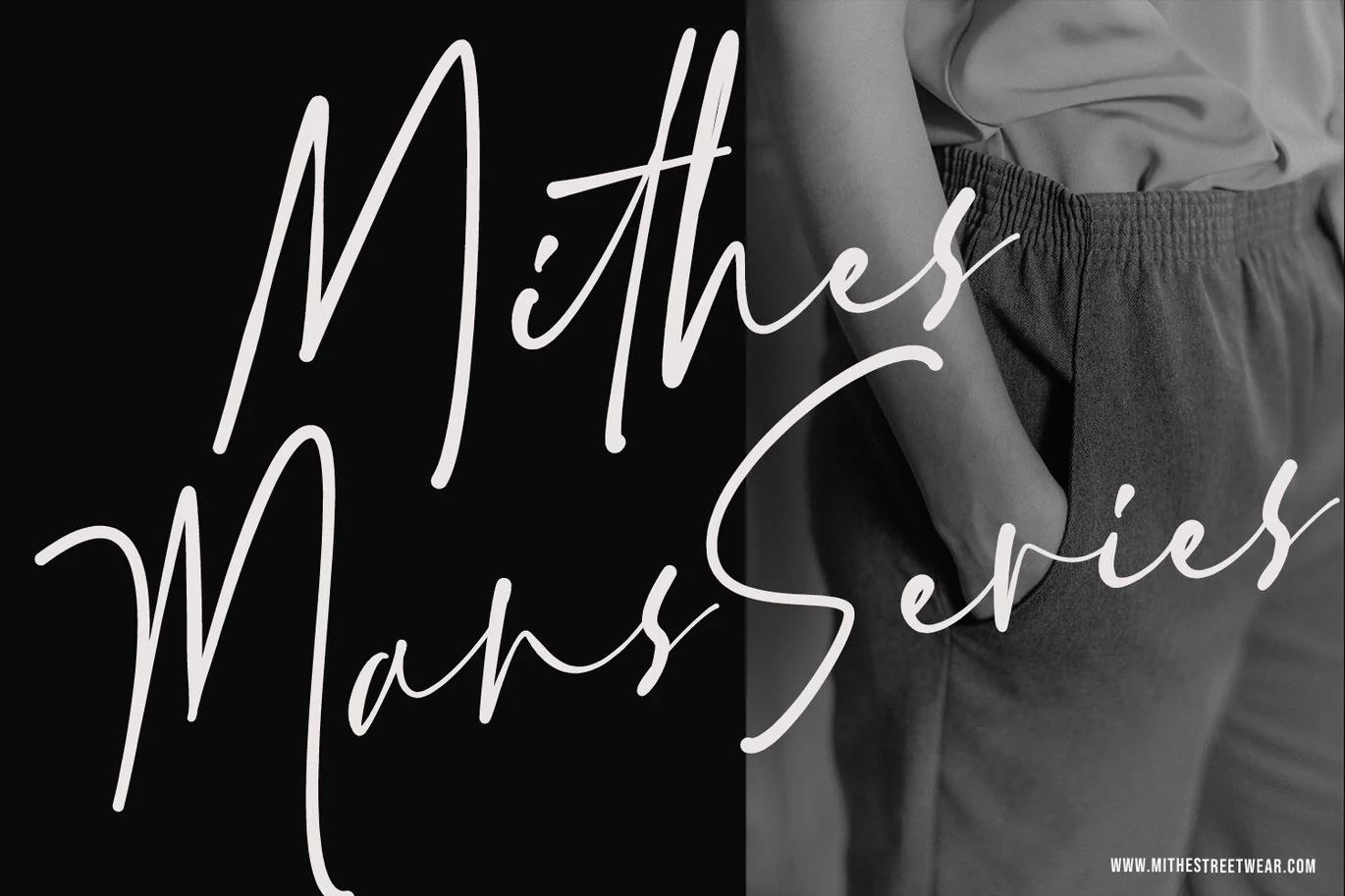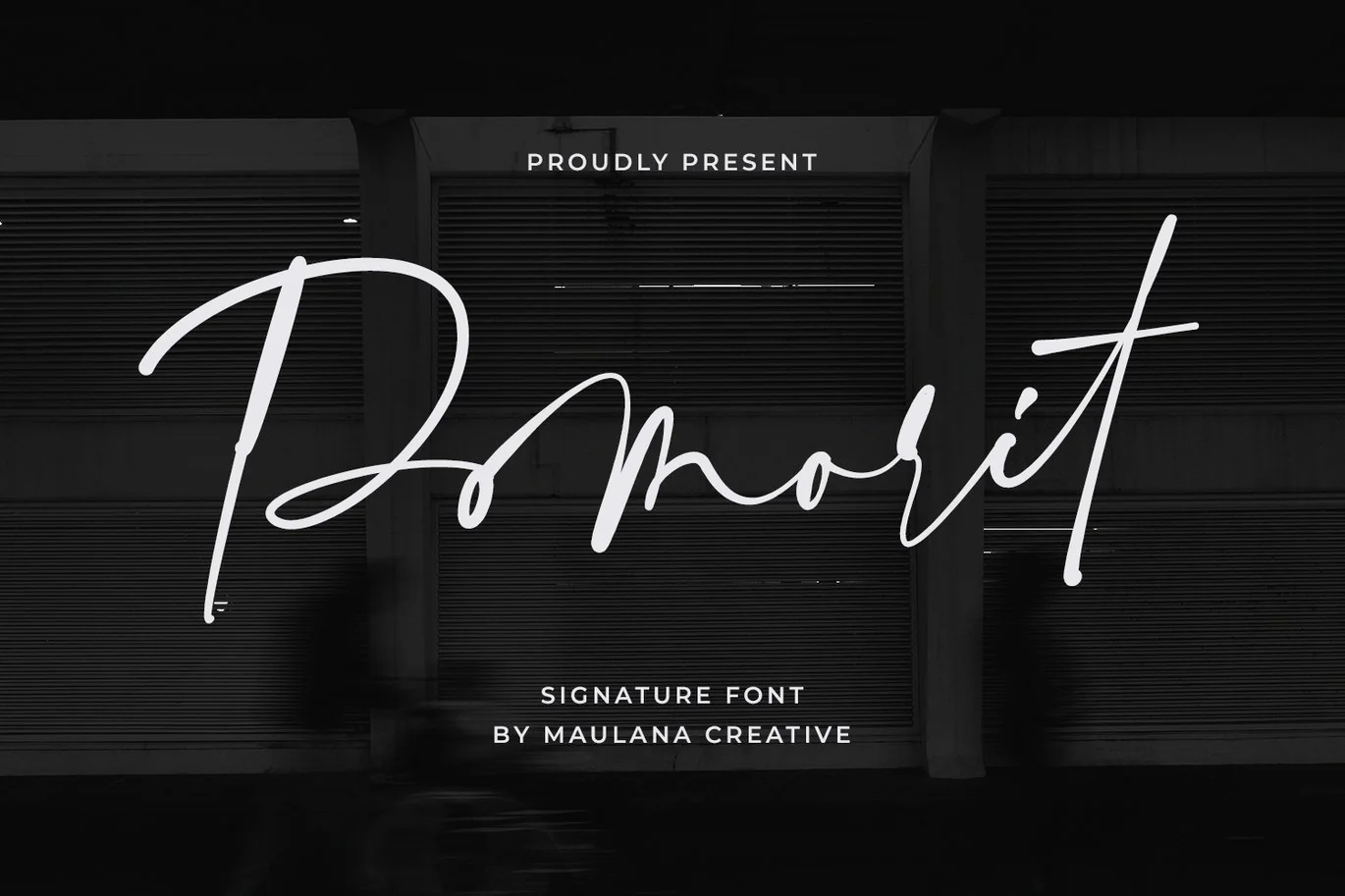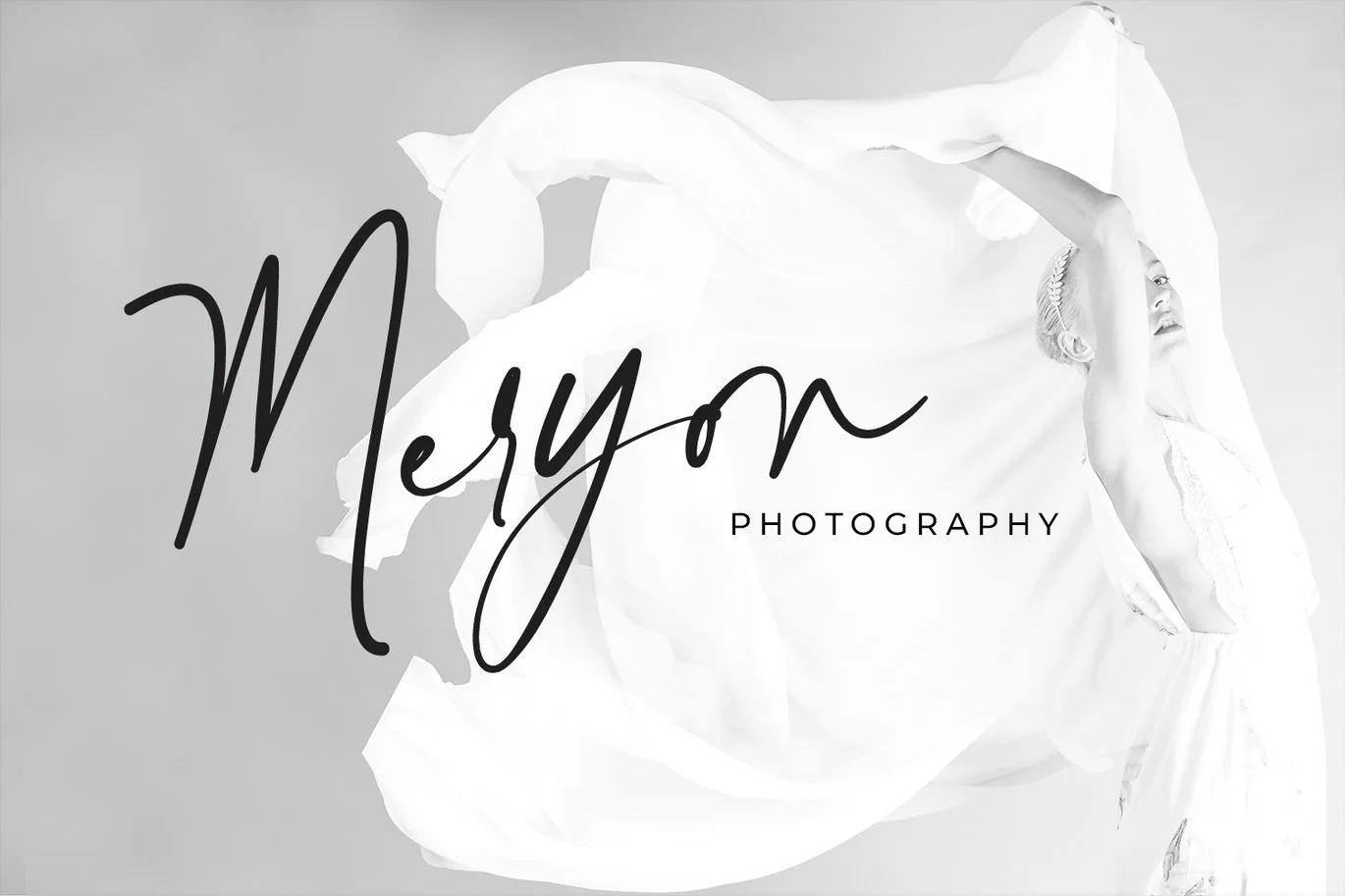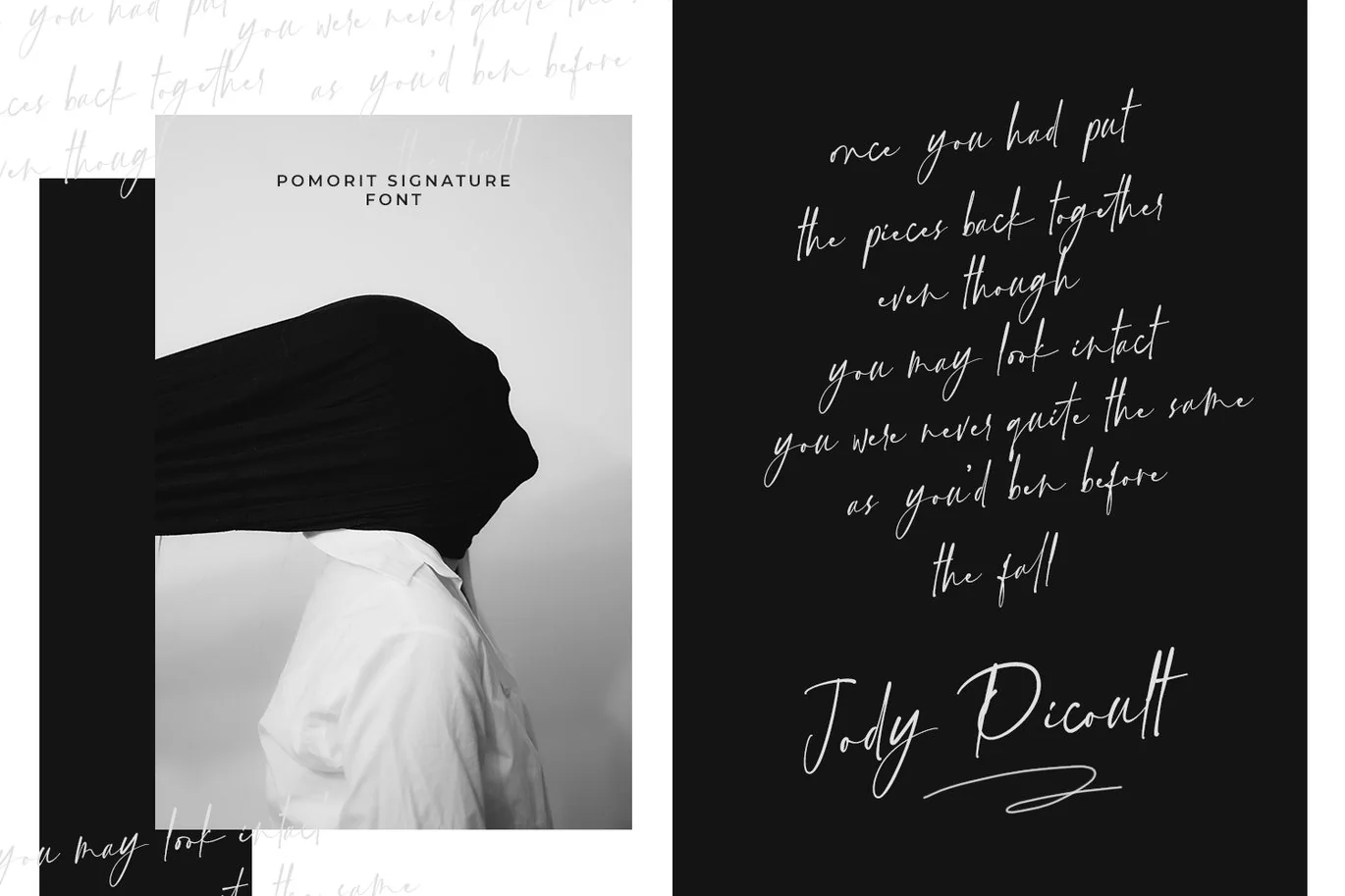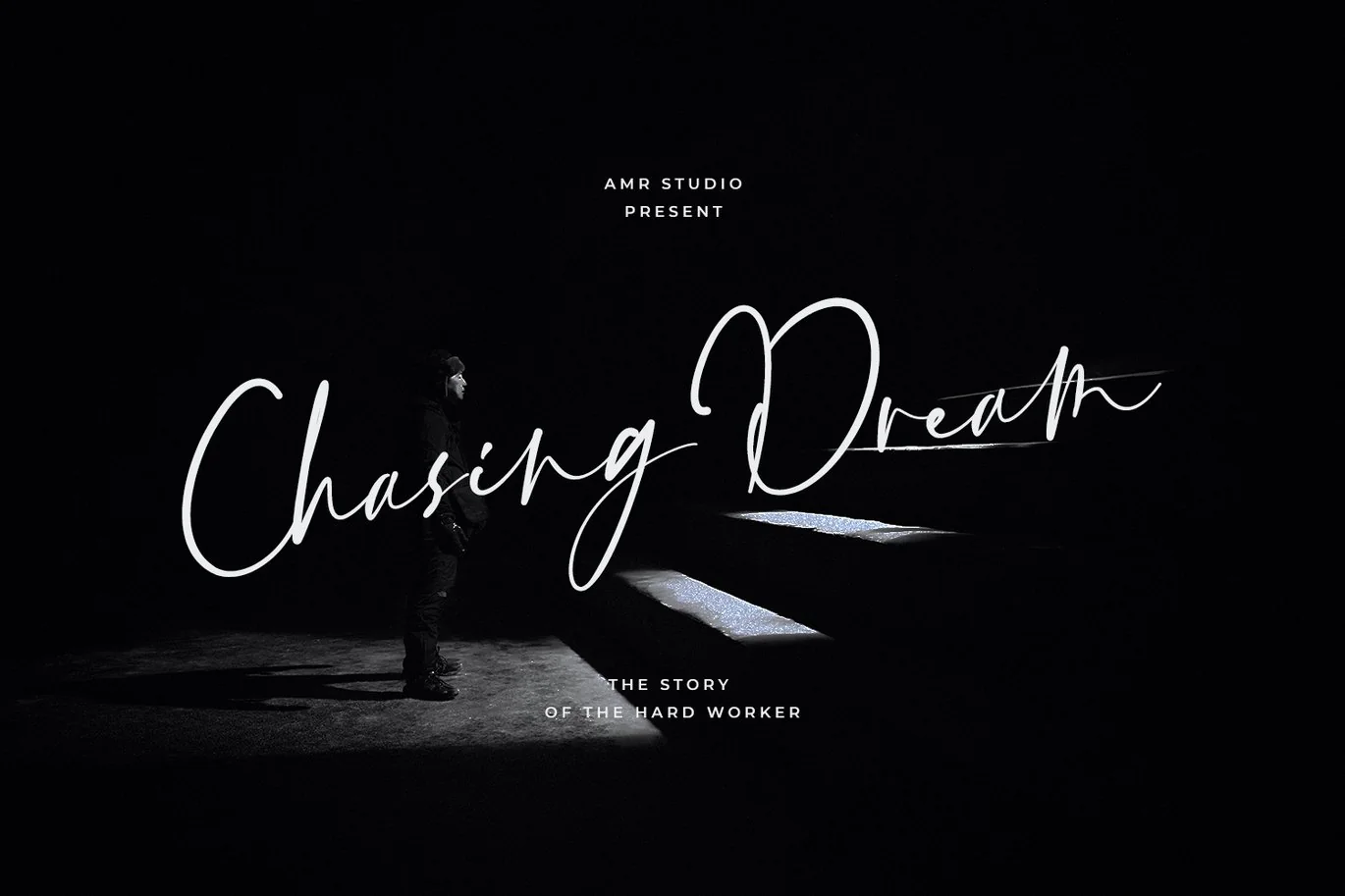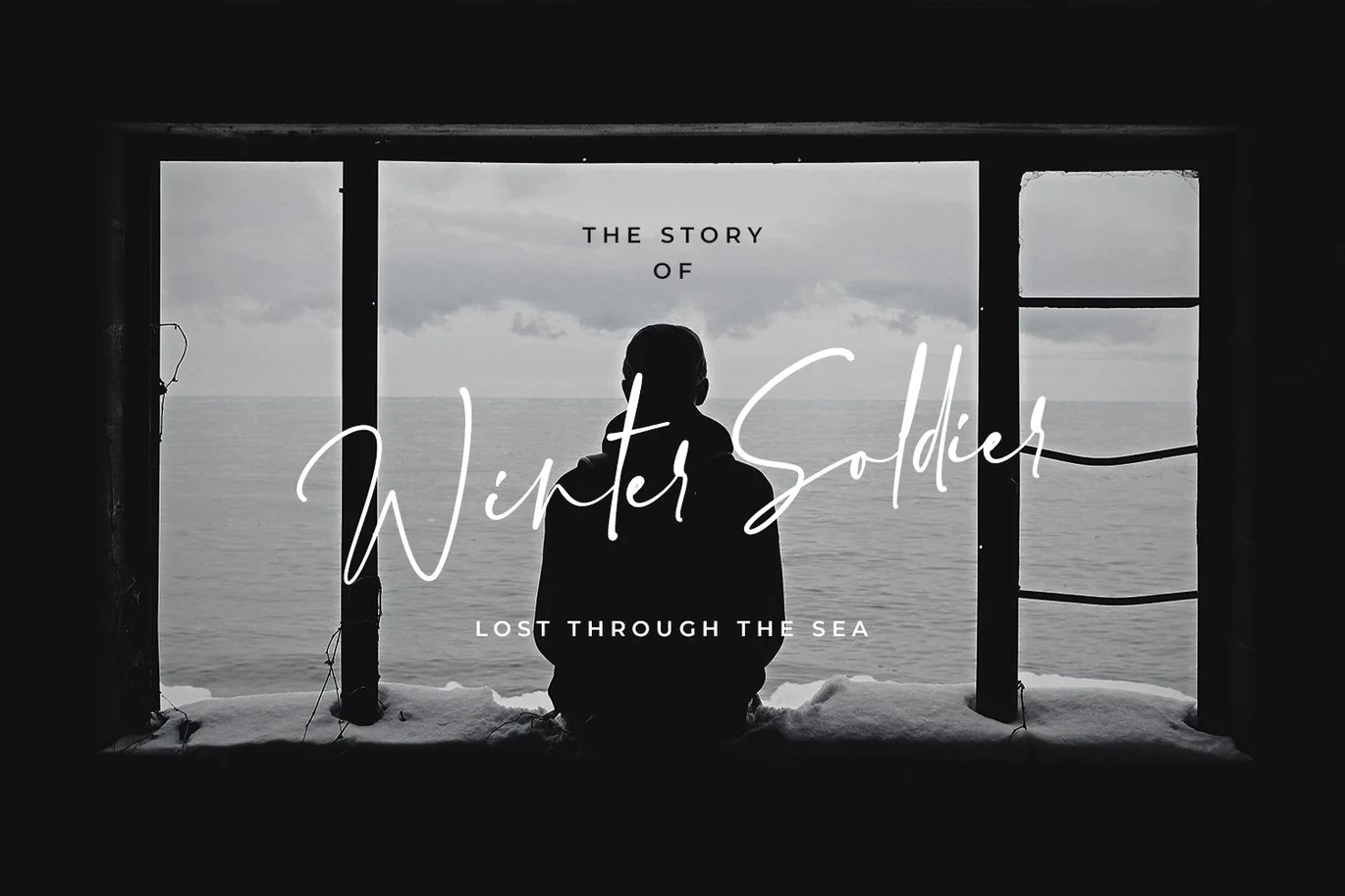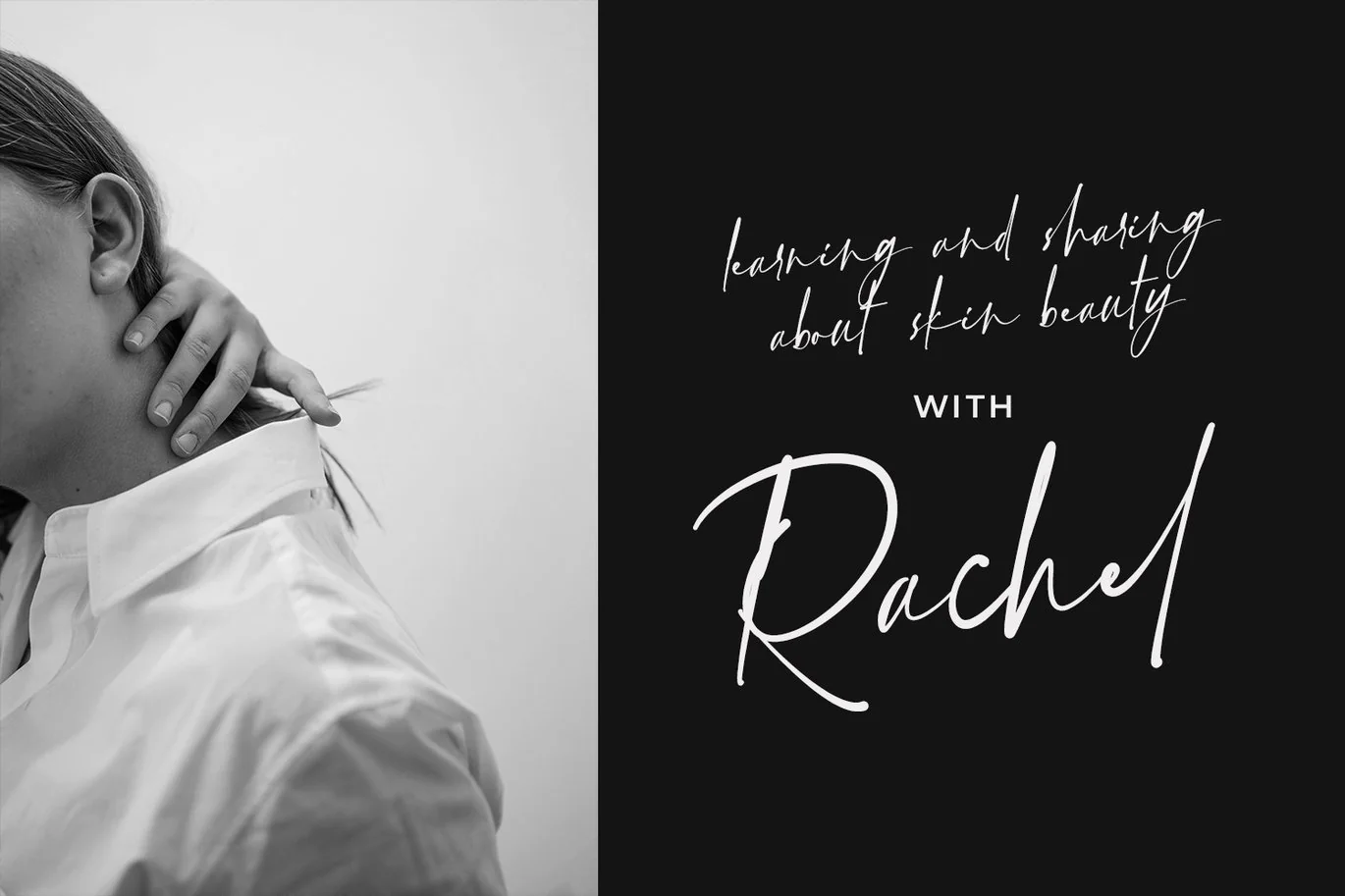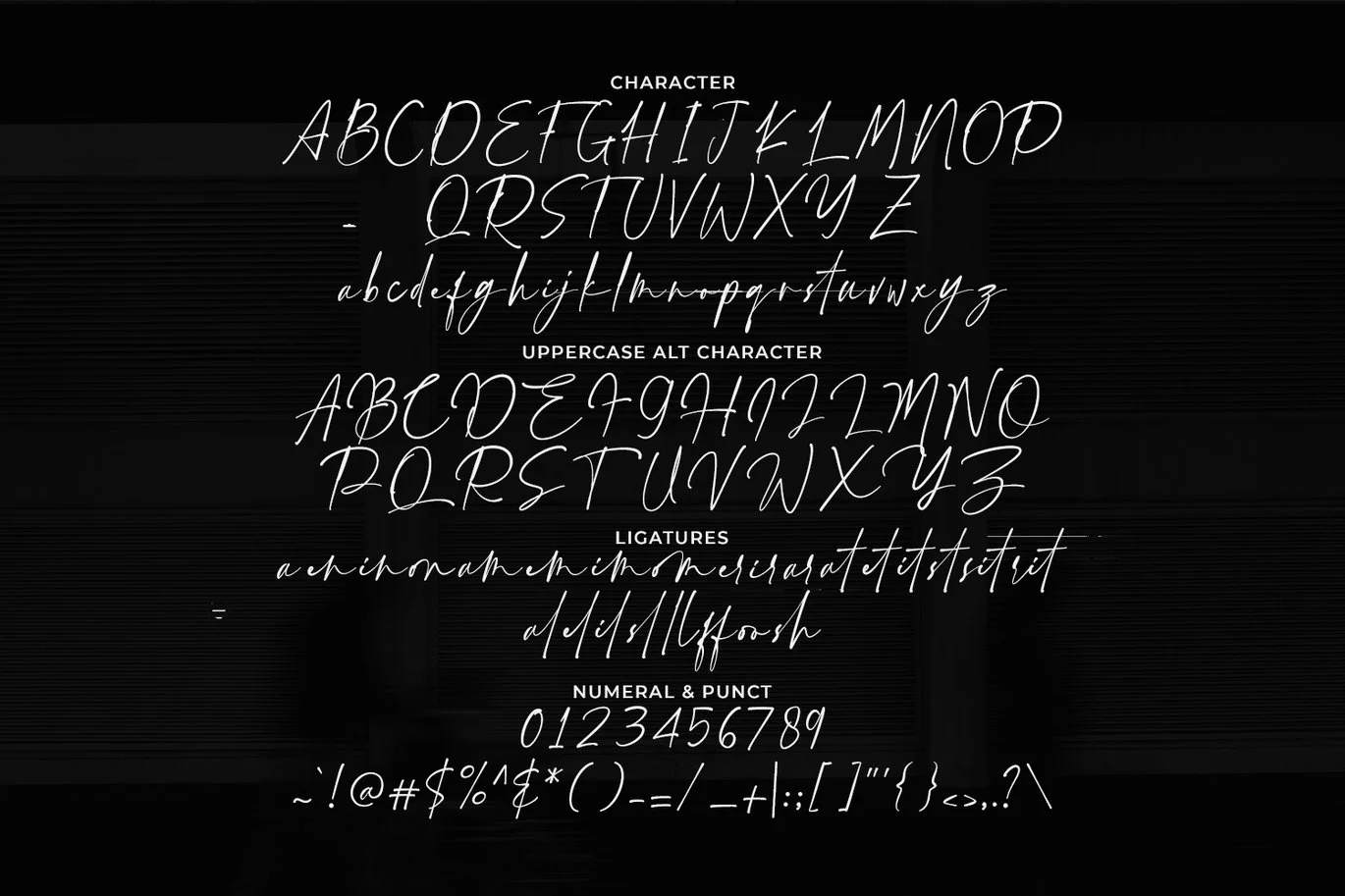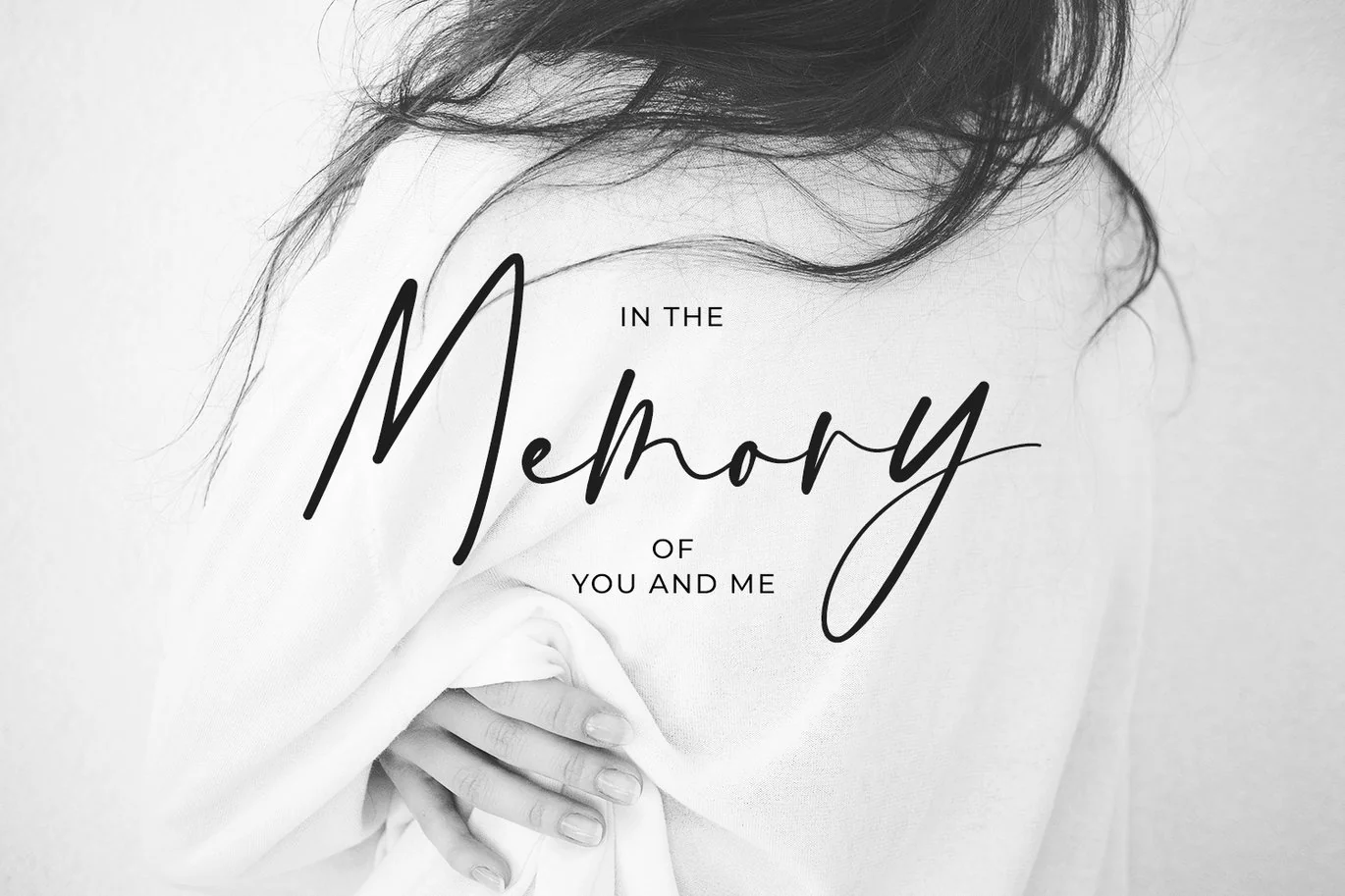
Pomorit Signature Font
Give your designs an authentic handcrafted feel. “Pomorit Signature Font” is perfectly suited to signature, stationery, logo, typography quotes, magazine or book cover, website header, clothing, branding, packaging design and more. Included Ligatures and Alternate.